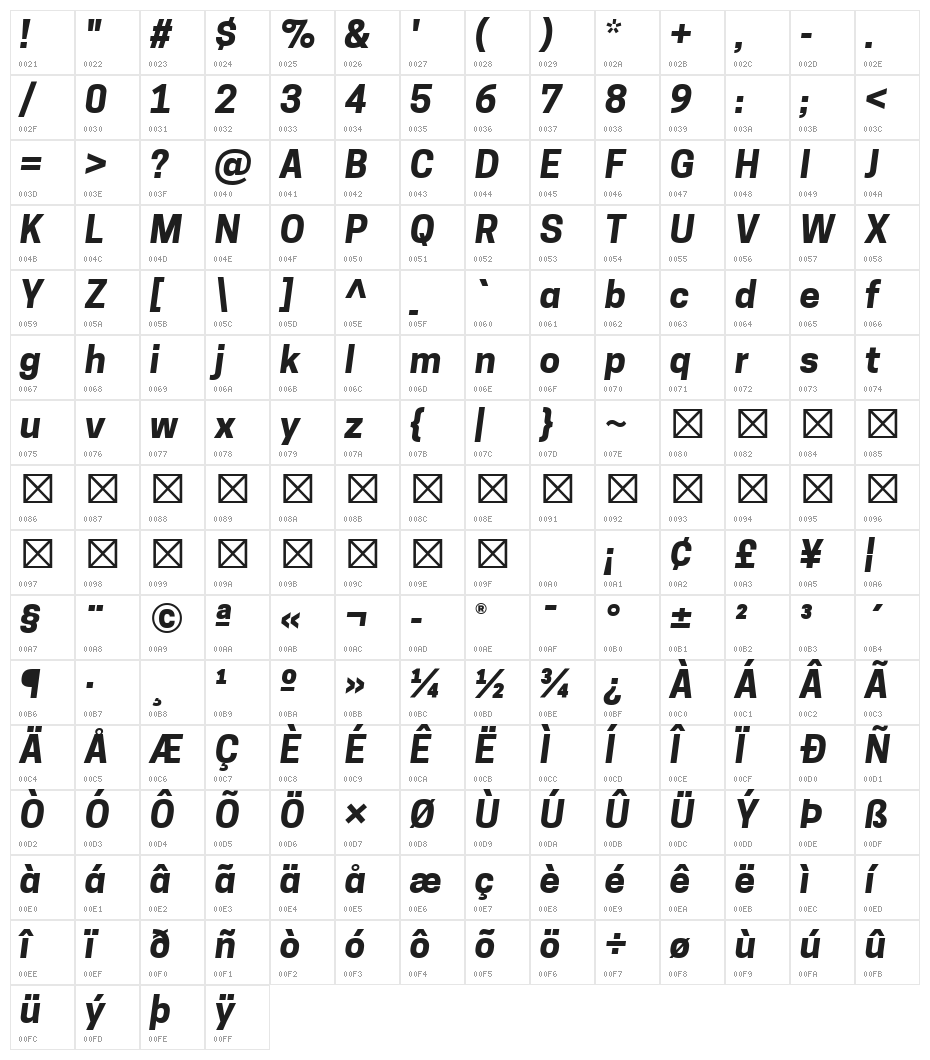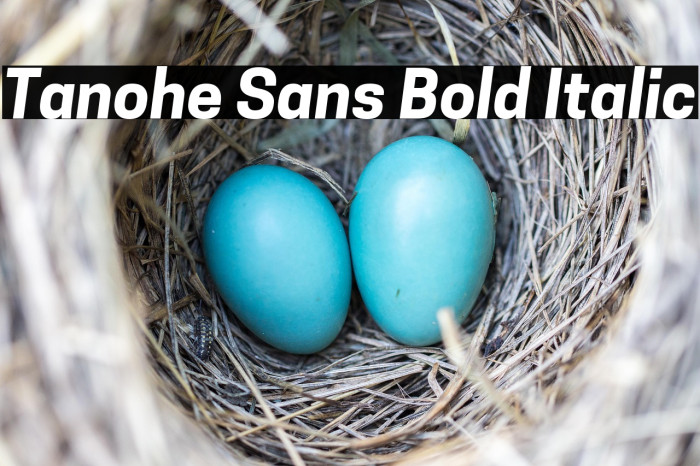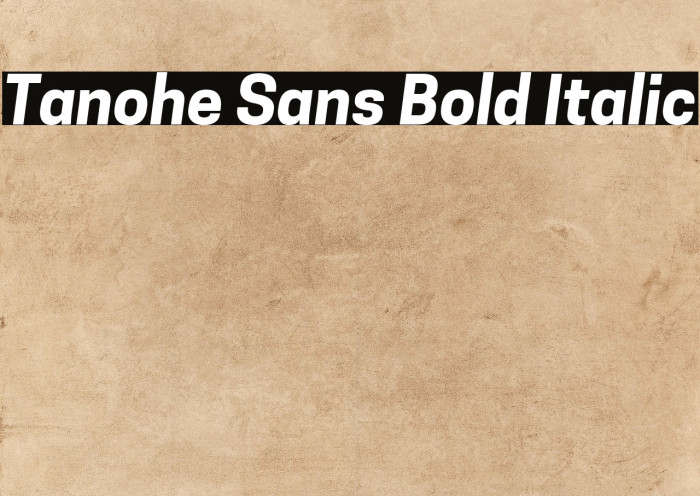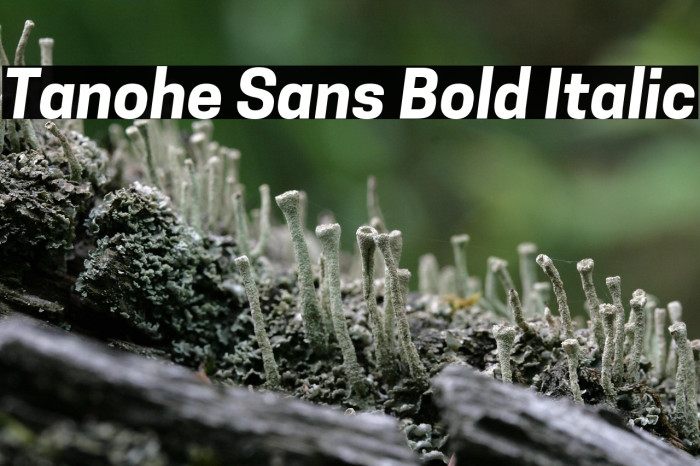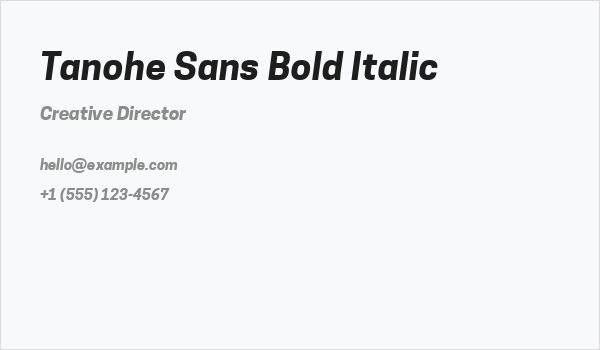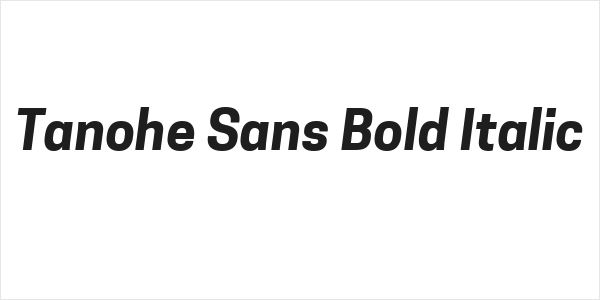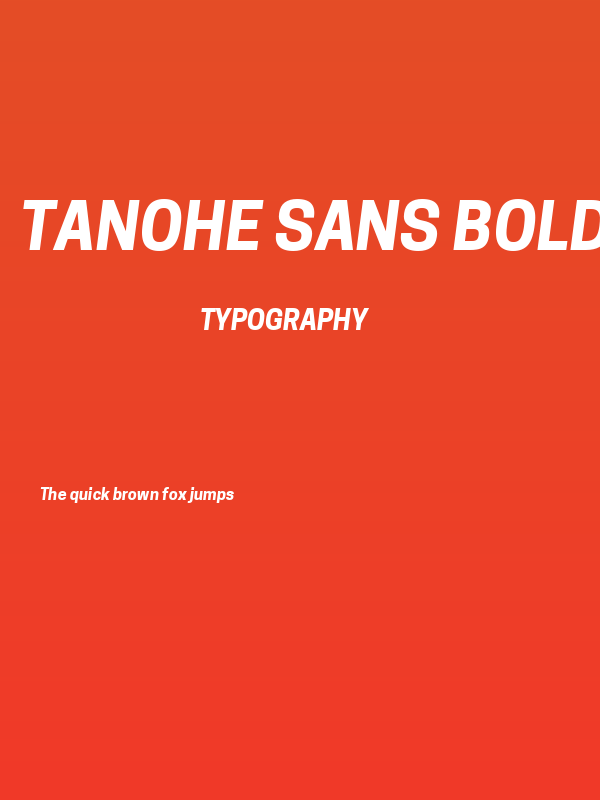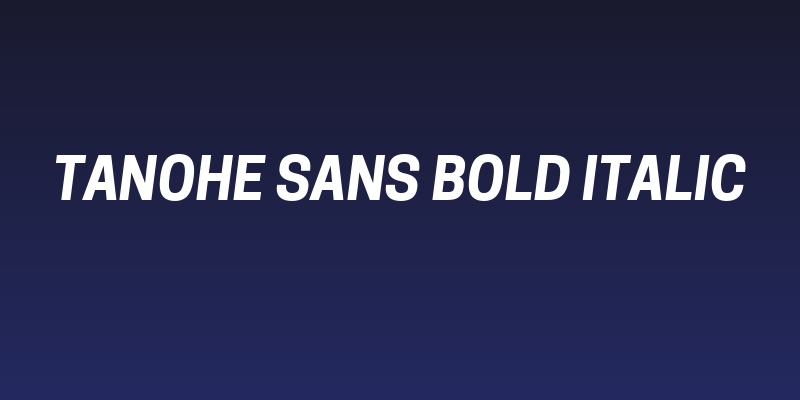
Tanohe Sans Bold Italic Font
Tanohe Sans Bold Italic Description
This font features a bold and italicized style, characterized by its clean and modern sans-serif design. The letters are slightly slanted, giving a dynamic and forward-moving appearance. The bold weight ensures strong visibility and impact, making it suitable for attention-grabbing headlines. The overall design is sleek and contemporary, with uniform stroke widths and minimal contrast, providing a consistent and harmonious look across all characters. The spacing between characters is normal, ensuring readability while maintaining a compact appearance. This font is versatile and can be used in various design contexts where a modern and assertive style is desired.
| Proposed Projects | Ideal for branding, advertising, headlines, and digital media where a strong and modern presence is needed. |